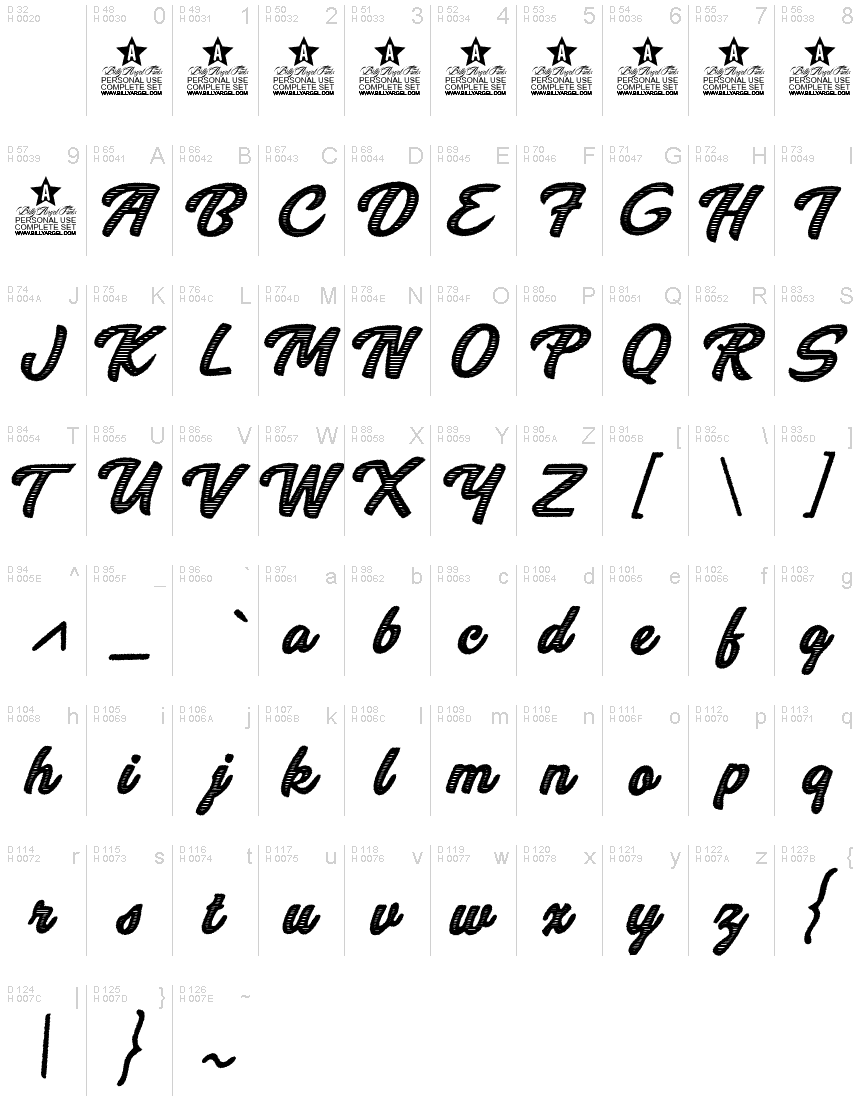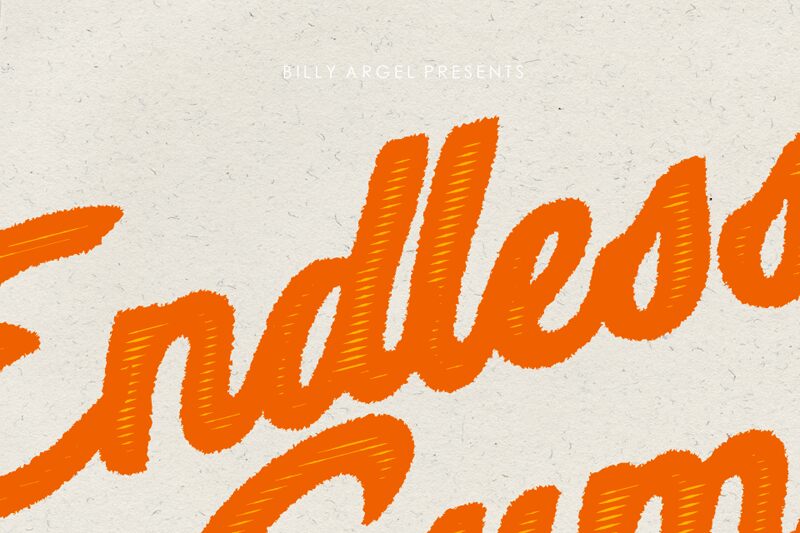
Endless Summer Personal Use Regular
Endless Summer is a bold eroded handwritten font designed by Billy Argel Fonts. Perfect for projects that require a touch of rustic charm, this typeface exudes personality and warmth. The jagged edges and rough texture create a sense of authenticity, making it suitable for designs that aim to evoke nostalgia or a sense of adventure. From posters to social media graphics, Endless Summer is versatile enough to be used in various creative projects, such as outdoor events, surf shops, or even music festivals. With its bold weight and unique style, Endless Summer promises to make your design stand out from the crowd.
Two layered fonts!